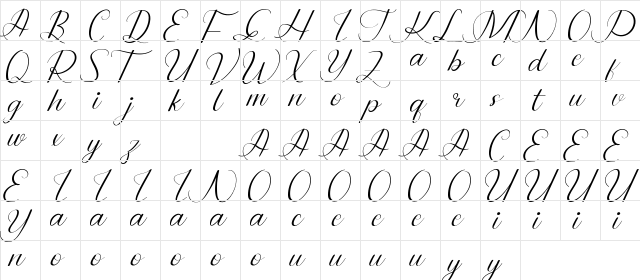
Dinernighty Demo Regular
Design Context for Dinernighty Demo Typeface
Dinernighty Demo is a composed and adaptable typeface that performs quietly and consistently across a wide range of design contexts.